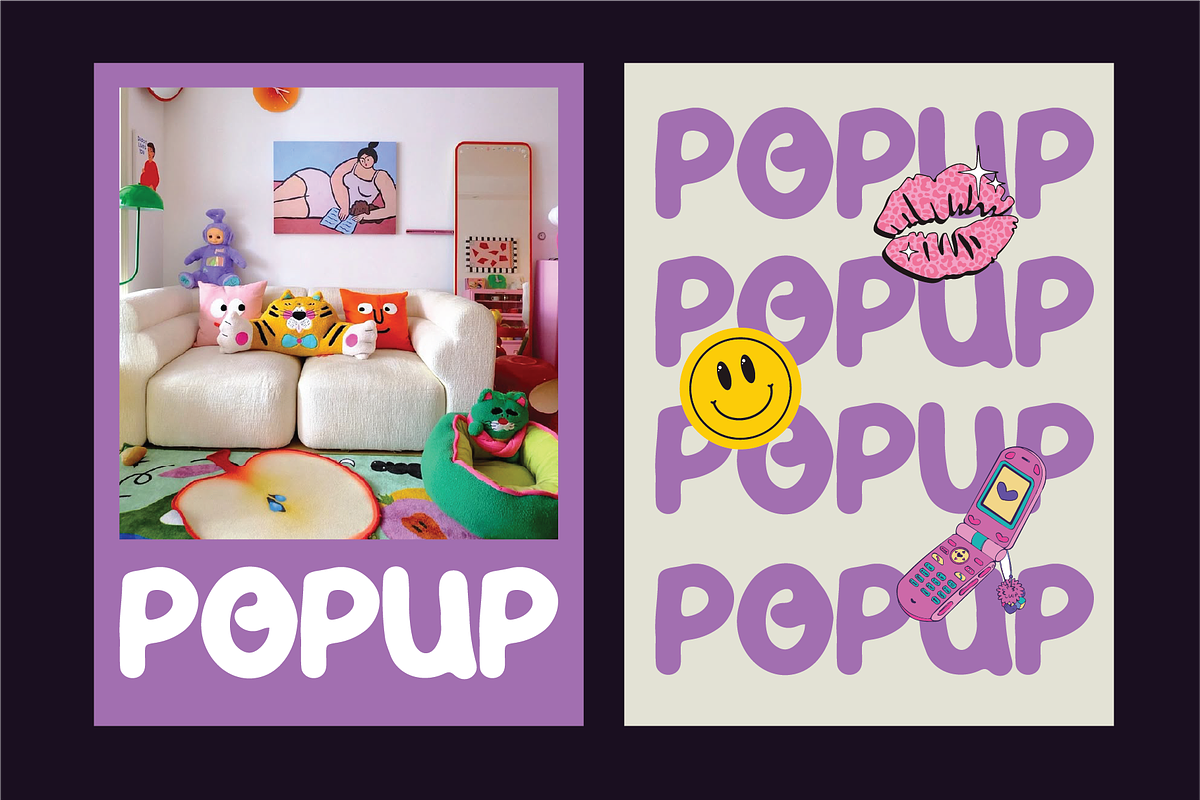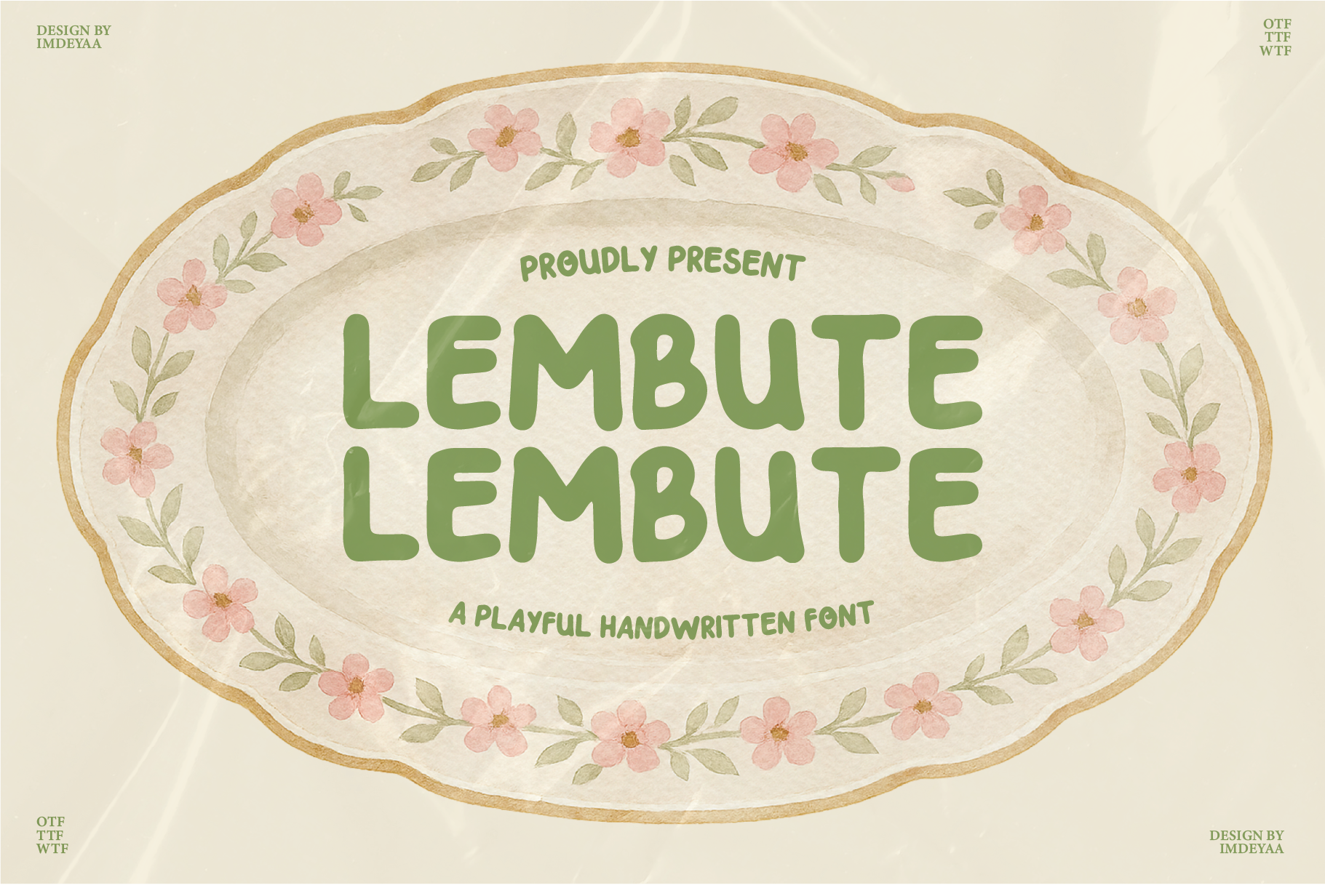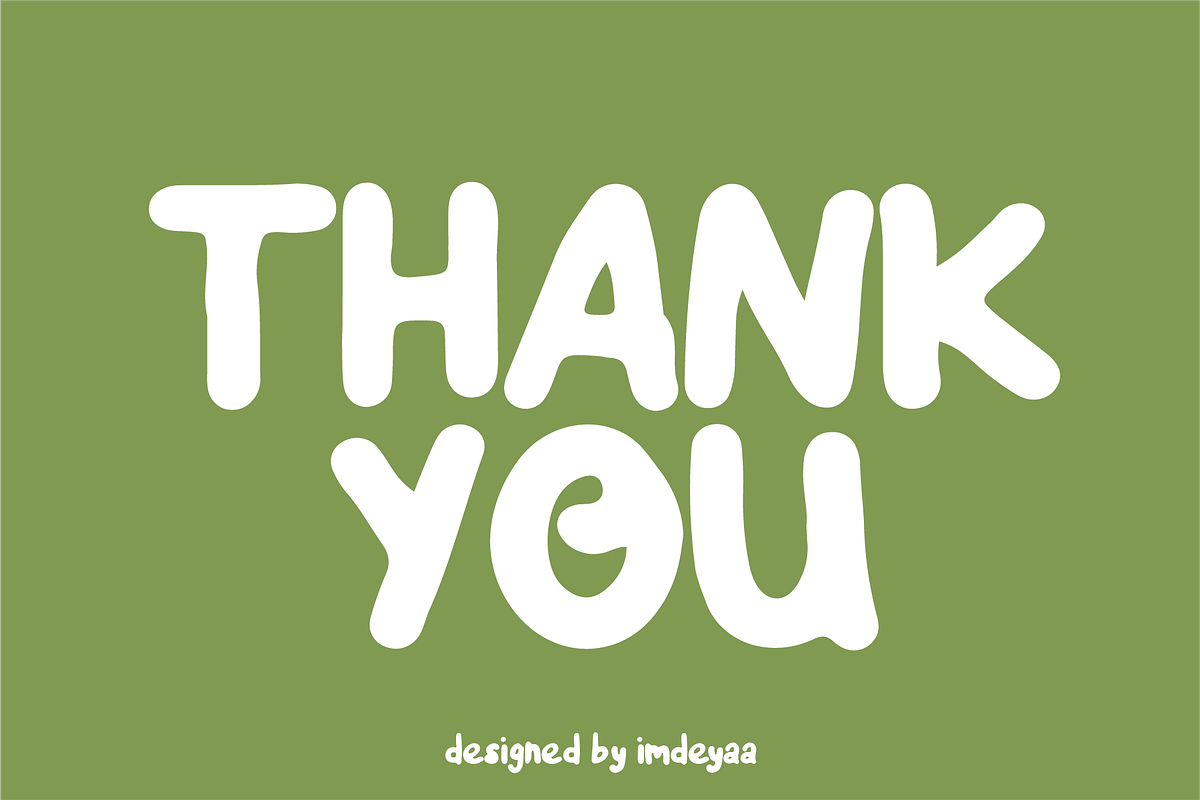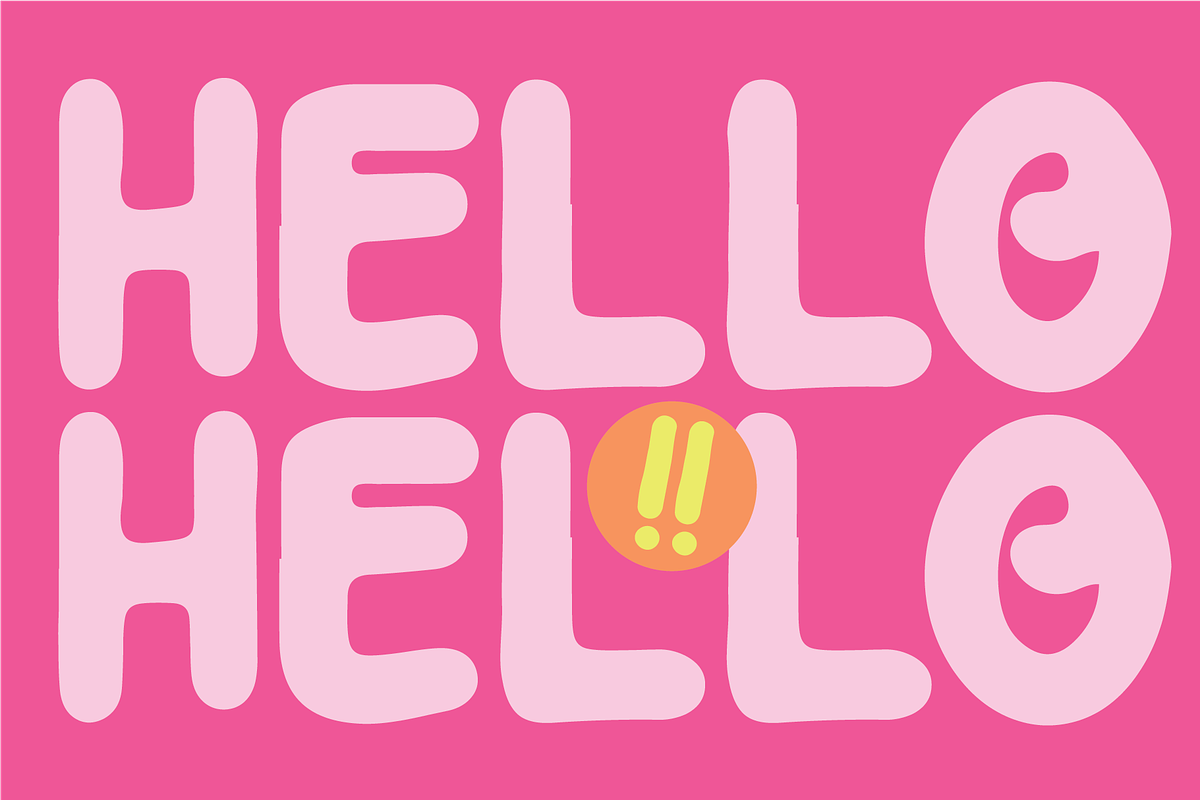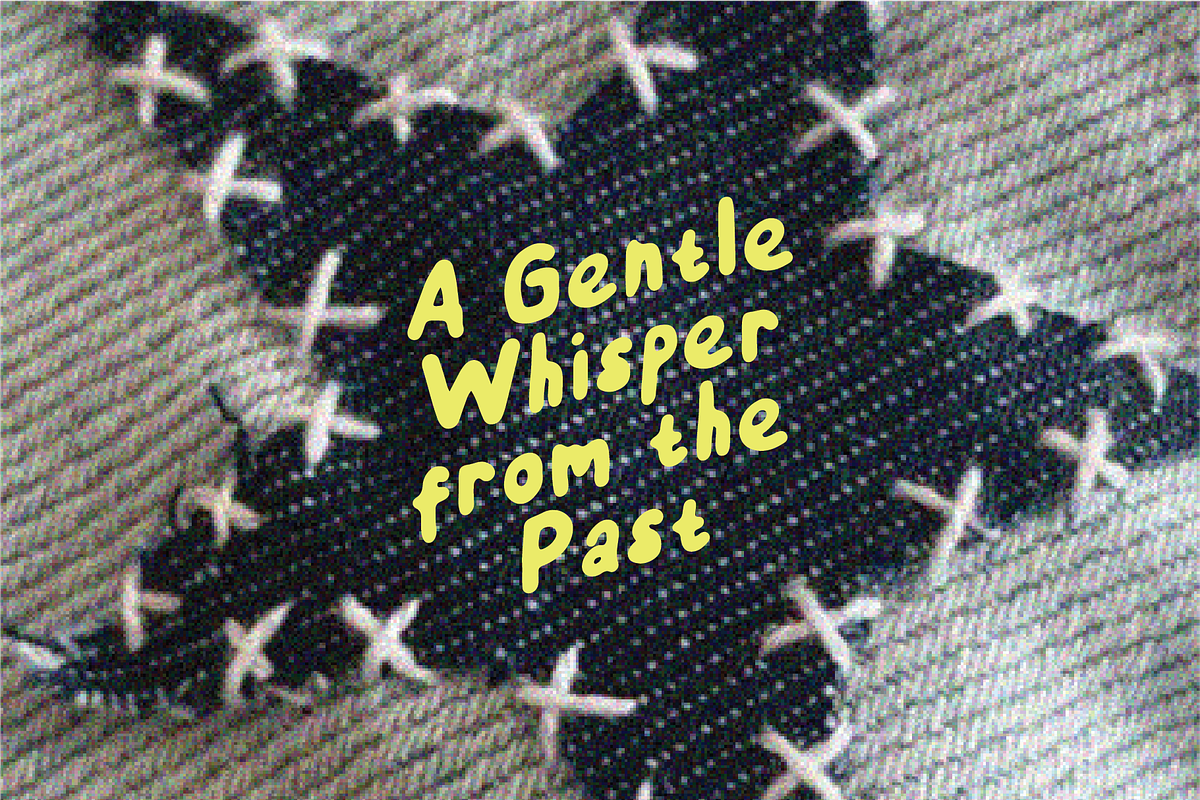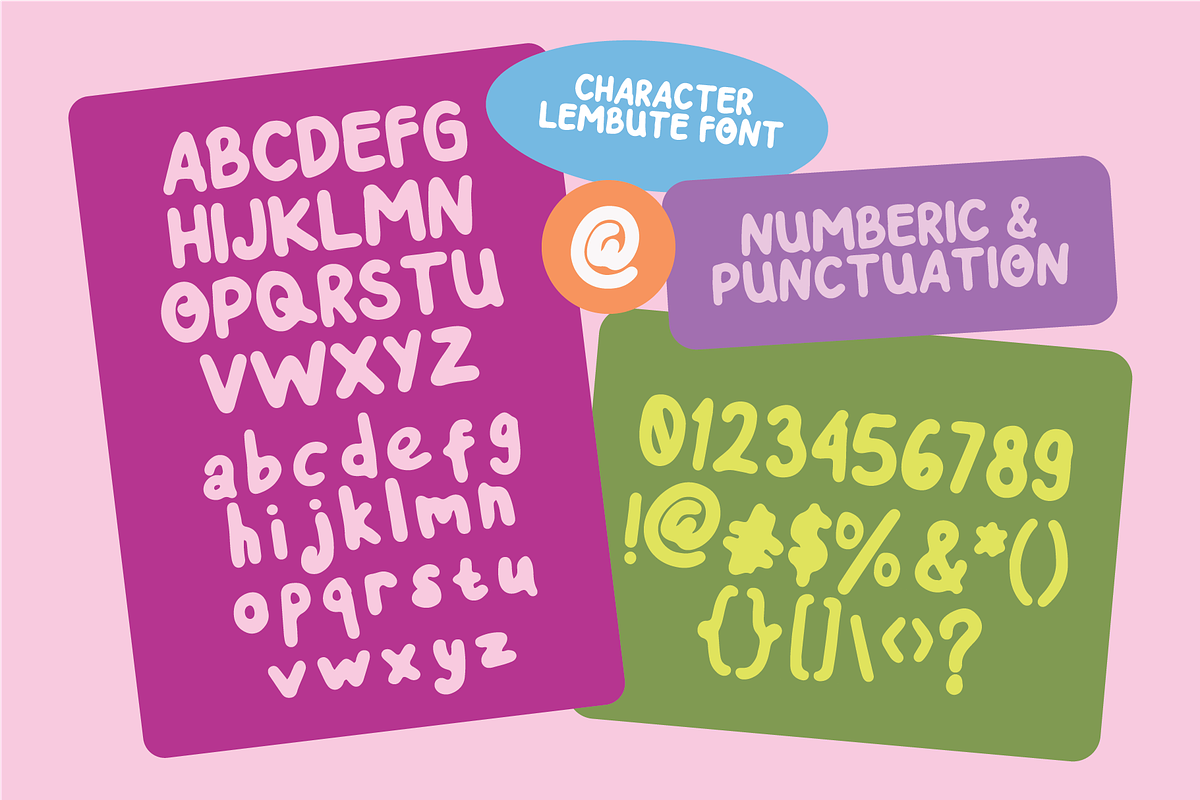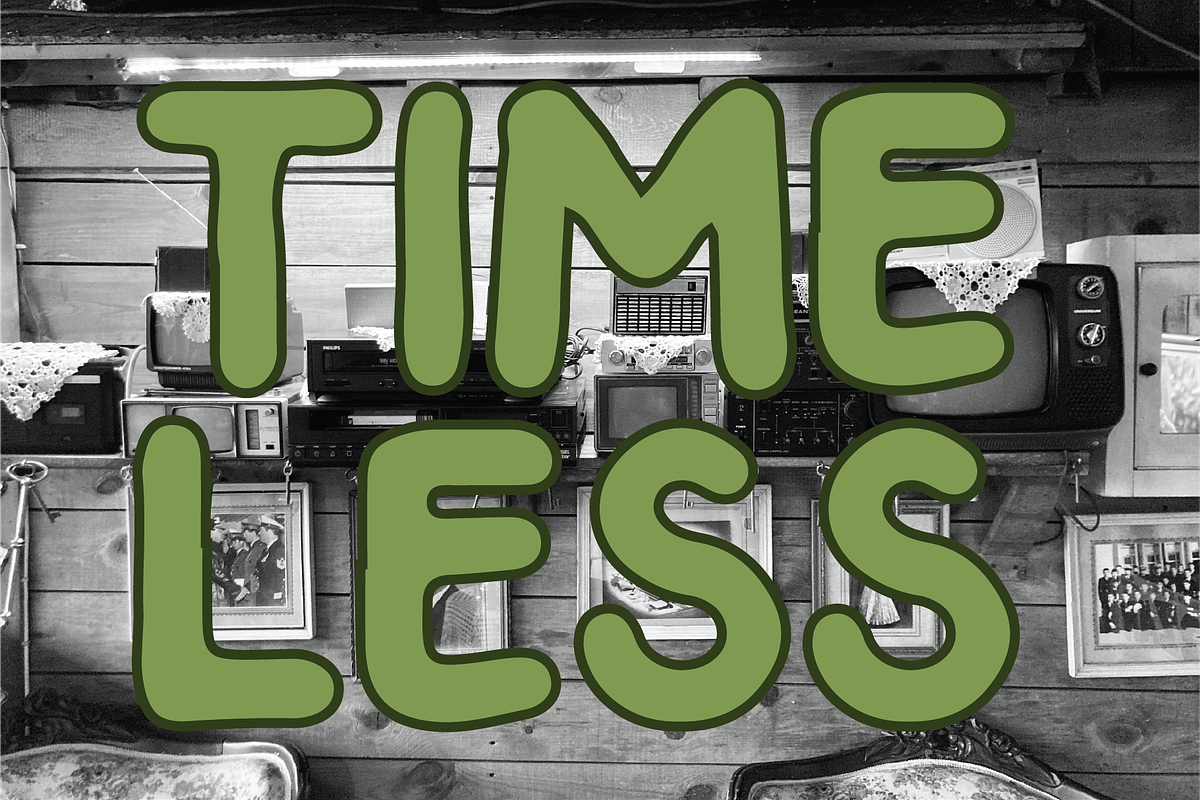
Lembute - A Playful Handwritten Font
Lembute is a playful handwritten display font with soft, rounded shapes and a warm, friendly personality. Its smooth curves and slightly chubby letterforms create a gentle, comforting feel, making it perfect for cheerful and wholesome designs. Its imperfect charm makes it perfect for creative projects such as quotes, greeting cards, kids’ designs, and whimsical branding.